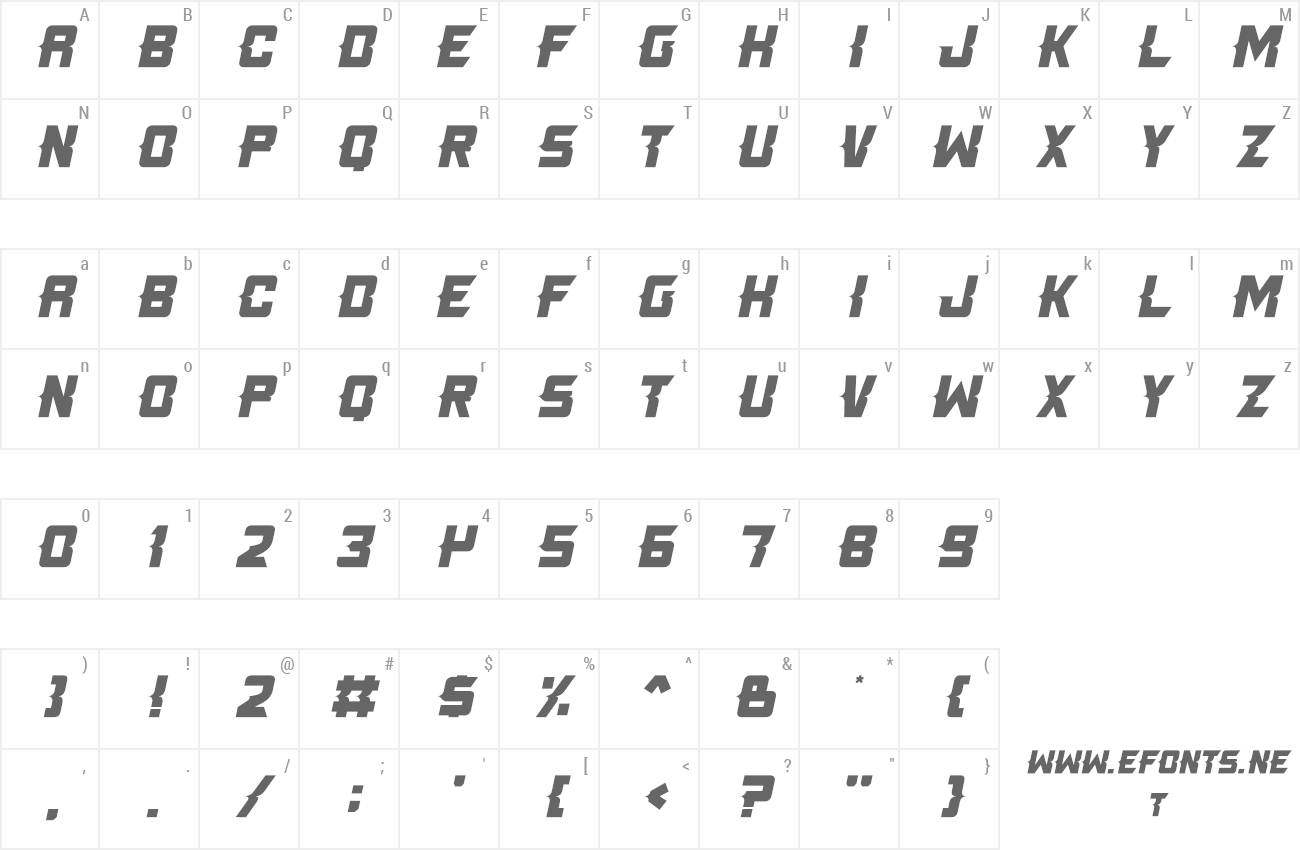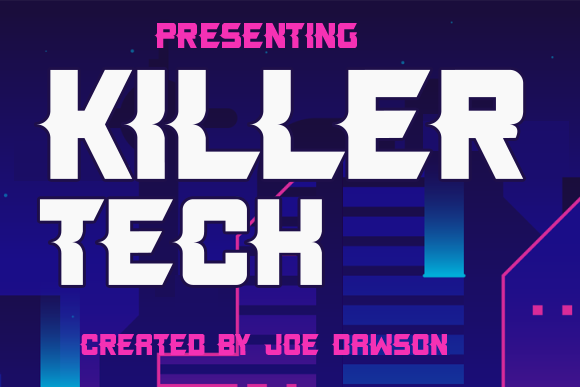
Preview and download Killer Tech Font. Created by Joseph Dawson in Fancy Various styles with Donationware license.
Killer Tech is a cool, bold and dynamic display font. This font is ideal for writing web designs, business cards, or pretty much anything else that requires a unique touch. This font is for personal use ONLY ... although donations are appreciated! Kindly give as much as you honestly feel the font is worth to you. Paypal account for donation: dawsonjoseph333@gmail.com For commercial use you must pay $10 USD. Link to purchase a commercial license : https://www.creativefabrica.com/product/killer-tech/ref/236312/ Please visit our store for more great fonts: https://www.creativefabrica.com/ref/236312/ |